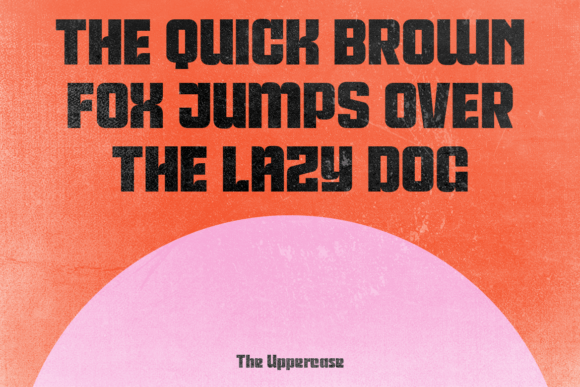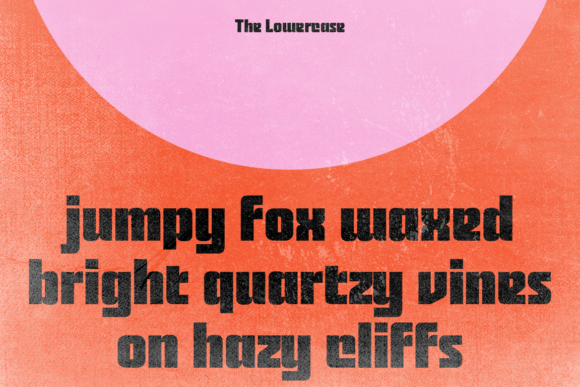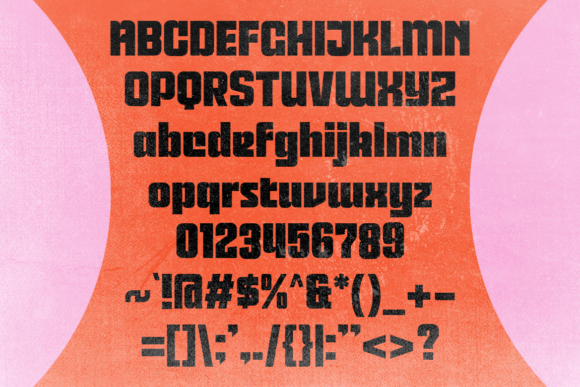
Introduction to Renamp Font
Meet Renamp: The Bold, Square-Cut Game Changer Looking for a font that’s bold, modern, and instantly catches the eye.
Renamp is here to shake things up It’s a bold sans-serif, but with a unique twist—each letter has a sleek, angled cut on the corners, making it look fresh and stylish without trying too hard.